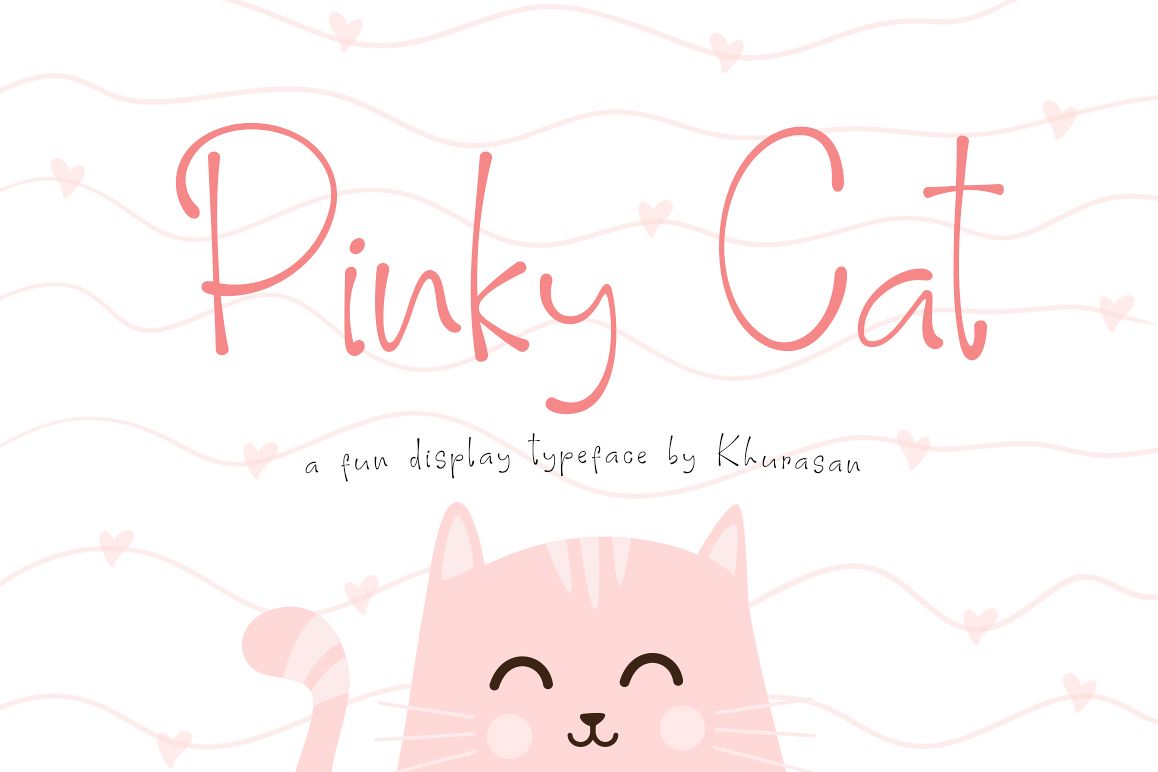
Pinky Cat
Introducing, Pinky Cat font a fun display typeface with cheerful theme for your fun project. Pinky Cat font support multilanguage. Pinky Cat font suitable for logo, branding, greeting card, poster and any design that you create.